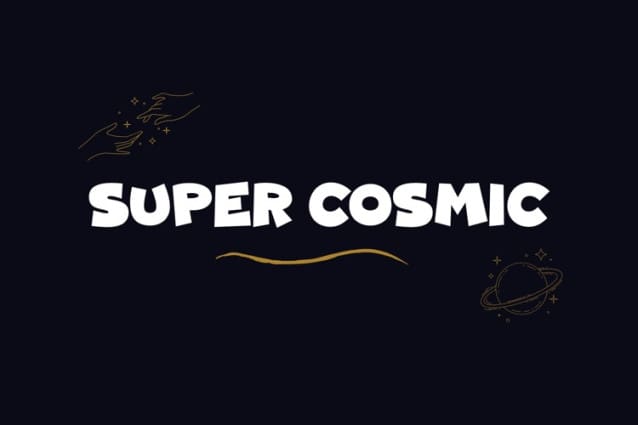
Super Cosmic Font
Super Cosmic Font is here to save the day! This font is a superhero of the alphabet, with bold lines, cosmic curves, and enough sass to make any text feel superpowered. So, grab your cape and let your imagination take flight with Super Cosmic!